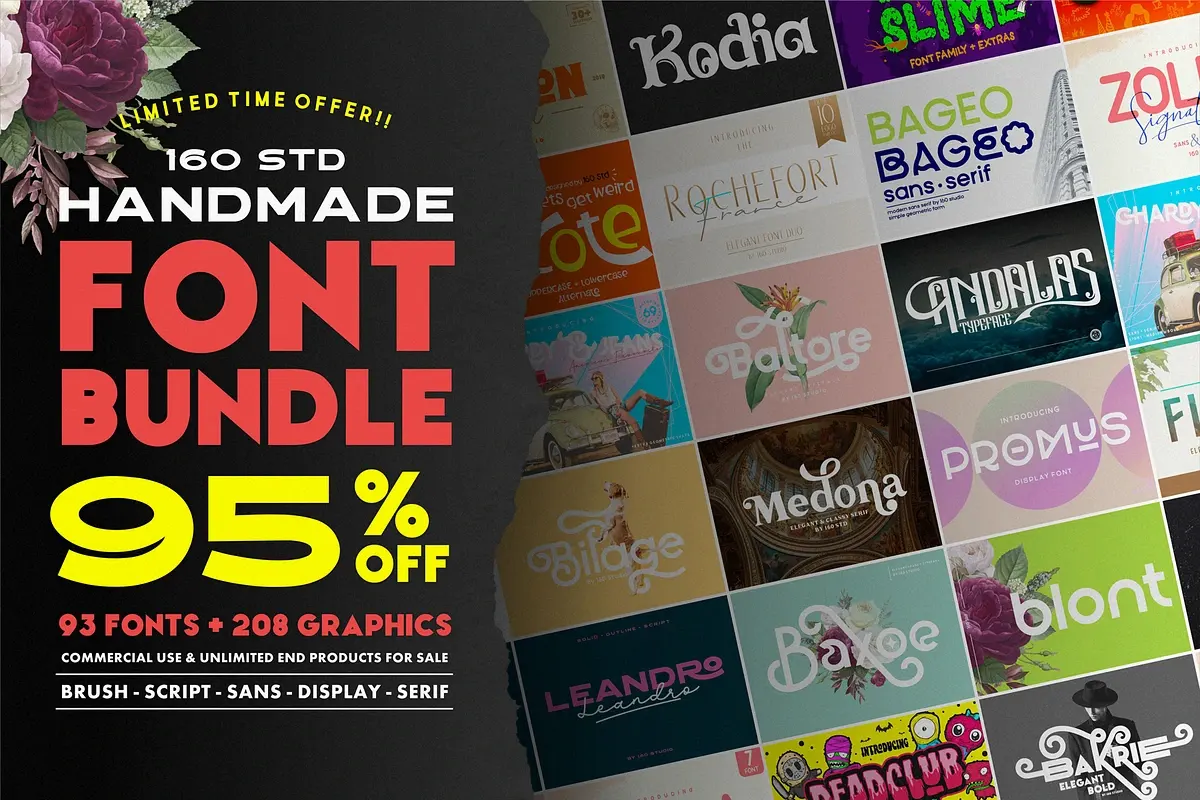
Unlock a world of typography possibilities with 160 Studio Font Bundle Free Download. This extensive font bundle includes a wide variety of styles, from elegant scripts and refined serifs to bold display fonts and modern sans-serifs, perfect for all kinds of creative projects such as logos, branding, websites, packaging, and more.
With 160 fonts at your disposal, this bundle offers a vast array of choices to suit any design aesthetic. Each font comes with uppercase and lowercase letters, numerals, punctuation, and multilingual support, giving you the flexibility to test multiple layouts and designs.